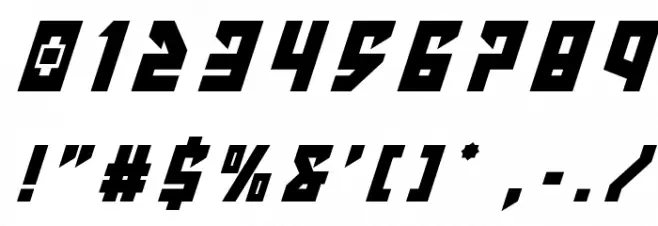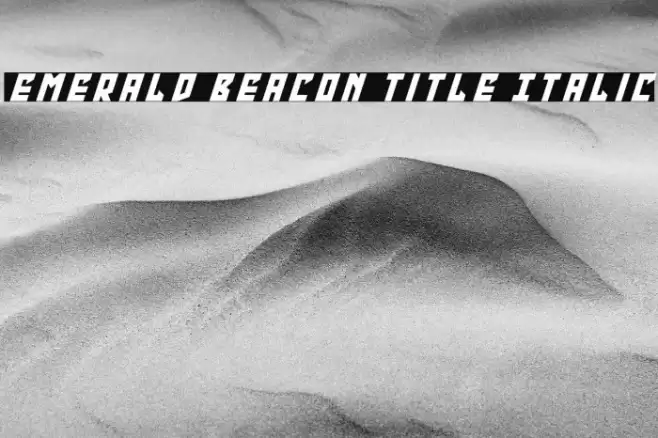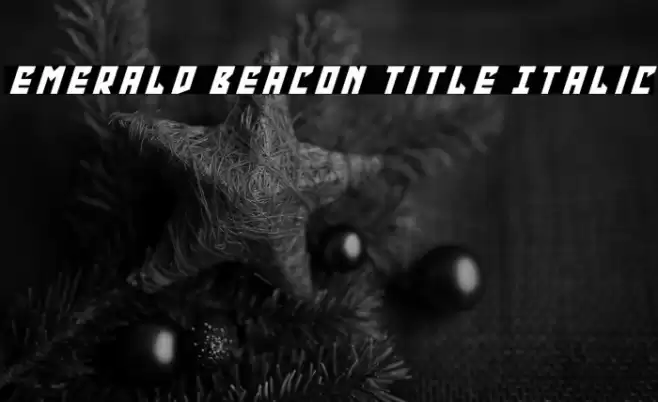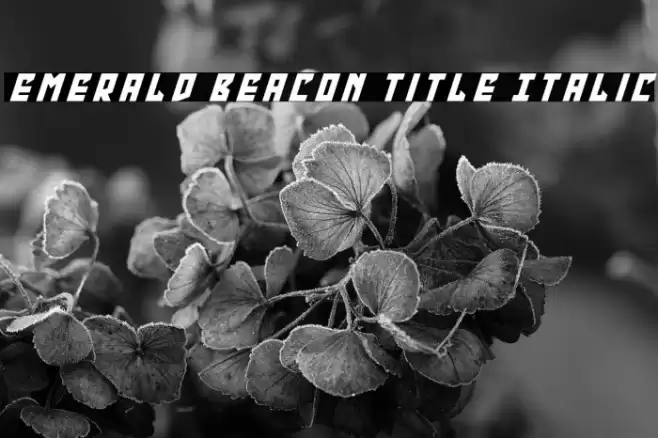
Emerald Beacon Title Italic Font
Emerald Beacon Title Italic Description
This font features a bold, angular design with a distinct italic slant, giving it a dynamic and energetic appearance. The characters are sharply cut with geometric precision, creating a futuristic and edgy look. The uppercase and lowercase letters maintain a consistent style, with each character exhibiting unique angles and cuts that enhance its boldness. The numbers and special characters follow the same design principles, ensuring uniformity across the font. The overall aesthetic is modern and impactful, making it suitable for attention-grabbing headlines and titles.
A bold, angular, and italic font with a futuristic and dynamic style from Uncategorized fonts.
- Proposed Projects: Ideal for use in sci-fi themed designs, video game titles, tech branding, and dynamic posters.